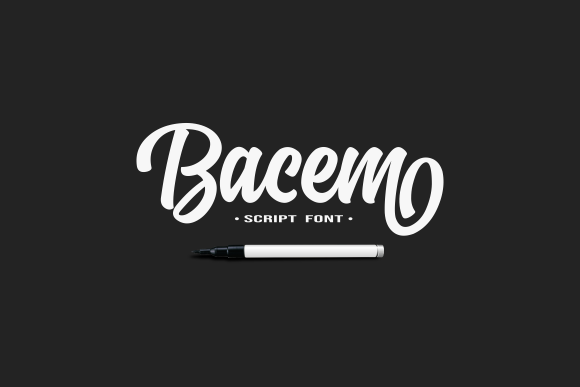
Bacem Font: A Striking Script Font for Logotypes, Quotes, and Headlines
The world of typography is vast and diverse, with numerous fonts designed to cater to different needs and preferences. Among these, script fonts hold a special place for their elegance, flair, and ability to add a touch of sophistication to any design. One such script font that has been making waves in the design community is the Bacem Font. In this article, we will delve into the features, benefits, and uses of the Bacem Font, exploring why it has become a popular choice for designers and typographers alike.
The Bacem Font: An Overview
The Bacem Font is a striking script font characterized by its bold letters and exceptional readability. Designed to make a statement, Bacem is perfect for creating logotypes, quotes, and headlines that demand attention. Its unique blend of elegance and boldness sets it apart from other script fonts, making it a versatile choice for various design projects.
Key Features of the Bacem Font
- Bold and Elegant Letters: The Bacem Font boasts bold letters that exude confidence and sophistication. Its elegant strokes and curves make it a perfect choice for designs that require a touch of luxury and refinement.
- Great Readability: One of the standout features of the Bacem Font is its exceptional readability. Even at smaller sizes, the font remains clear and legible, making it suitable for a wide range of applications.
- Versatility: The Bacem Font is incredibly versatile, allowing designers to use it for various projects, from logotypes and branding to quotes, headlines, and more.
Uses of the Bacem Font
The Bacem Font’s unique combination of boldness and elegance makes it an excellent choice for several design applications. Some of the most popular uses of the Bacem Font include:
- Logotypes and Branding: The Bacem Font is perfect for creating memorable logotypes and branding elements that require a bold and elegant touch.
- Quotes and Headlines: The font’s exceptional readability and striking appearance make it an excellent choice for quotes and headlines that need to grab attention.
- Advertising and Marketing Materials: The Bacem Font can add a touch of sophistication and elegance to advertising and marketing materials, such as brochures, flyers, and posters.
- Packaging Design: The font’s bold and elegant appearance makes it suitable for packaging design, particularly for luxury brands and products.
Benefits of Using the Bacem Font
The Bacem Font offers several benefits to designers and typographers, including:
- Unique and Memorable Designs: The Bacem Font’s bold and elegant appearance helps create unique and memorable designs that stand out from the crowd.
- Improved Readability: The font’s exceptional readability ensures that your message is conveyed clearly and effectively, even at smaller sizes.
- Versatility: The Bacem Font’s versatility allows designers to use it for a wide range of projects, from logotypes and branding to quotes, headlines, and more.
- Time-Saving: With the Bacem Font, designers can save time and effort, as the font’s bold and elegant appearance eliminates the need for extensive design work.
Tips for Using the Bacem Font Effectively
To get the most out of the Bacem Font, consider the following tips:
- Use it Sparingly: While the Bacem Font is bold and elegant, it’s essential to use it sparingly to avoid overwhelming the design.
- Pair it with Complementary Fonts: Pairing the Bacem Font with complementary fonts can create a visually appealing contrast and add depth to the design.
- Experiment with Colors and Textures: Experimenting with different colors and textures can help create a unique and memorable design that showcases the Bacem Font’s versatility.
The Bacem Font is a striking script font that offers a unique blend of boldness and elegance. Its exceptional readability, versatility, and range of uses make it an excellent choice for designers and typographers looking to create memorable and effective designs. Whether you’re creating logotypes, quotes, headlines, or other design elements, the Bacem Font is sure to make a statement.